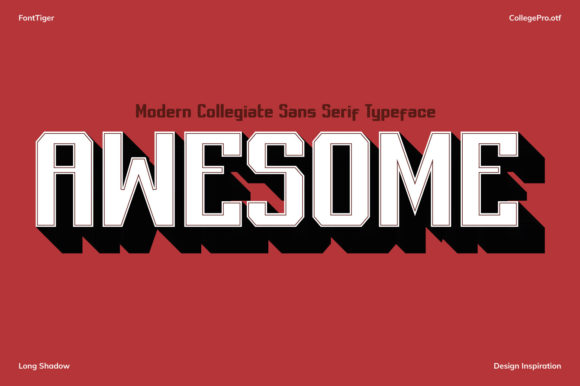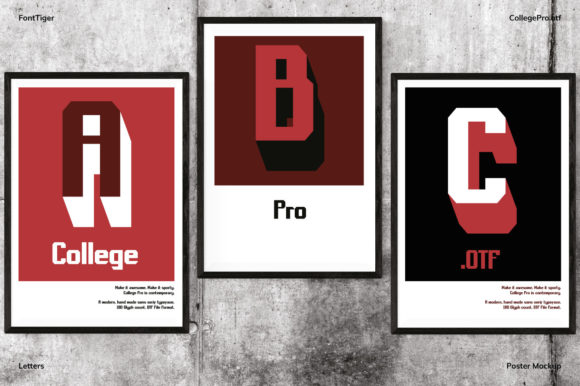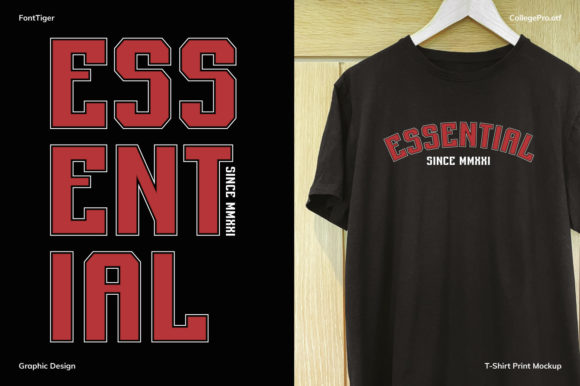
Introducing College Pro Font: The Ultimate Display Font for Bold Projects
Are you tired of using the same old fonts for your design projects? Look no further than College Pro Font, a cool, thick lettered, and assertive display font that’s perfect for making a statement. With its bold and eye-catching design, College Pro is ideal for a wide range of projects, from blog posts and logos to branding, ads, invitations, greeting cards, planners, photo albums, decorations, and much more.
What Makes College Pro Font So Special?
College Pro Font is a unique and versatile font that’s designed to help you create stunning visual content. Its thick lettering and assertive style make it perfect for grabbing attention and conveying confidence. Whether you’re a designer, crafty DIY enthusiast, or simply someone who loves to create, College Pro Font is the perfect addition to your font collection.
Endless Possibilities with College Pro Font
One of the best things about College Pro Font is its incredible versatility. This font can be used for a wide range of projects, including:
- Blog Posts: Add a bold and eye-catching title to your blog post with College Pro Font. It’s perfect for creating attention-grabbing headlines that draw readers in.
- Logos and Branding: Create a memorable and professional logo for your business or brand with College Pro Font. Its bold and assertive style makes it perfect for companies that want to make a statement.
- Ads: Use College Pro Font to create eye-catching ads that grab attention and drive results. Its thick lettering and bold style make it perfect for creating ads that stand out.
- Invitations and Greeting Cards: Add a personal touch to your invitations and greeting cards with College Pro Font. Its bold and playful style makes it perfect for creating unique and memorable cards.
- Planners and Photo Albums: Use College Pro Font to add a bold and creative touch to your planners and photo albums. Its thick lettering and assertive style make it perfect for creating visually appealing layouts.
- Decorations: Get creative with College Pro Font and use it to create stunning decorations for your home or office. Its bold and eye-catching style makes it perfect for creating unique and personalized decor.
Why Designers and Crafters Love College Pro Font
College Pro Font has quickly become a favorite among designers and crafters, and for good reason. Here are just a few reasons why:
- Easy to Read: Despite its bold and thick lettering, College Pro Font is surprisingly easy to read. This makes it perfect for creating visual content that’s both stylish and legible.
- Highly Versatile: College Pro Font can be used for a wide range of projects, from digital designs to print materials. Its versatility makes it a valuable addition to any font collection.
- Unique and Creative: College Pro Font is a truly unique and creative font that’s sure to help you stand out from the crowd. Its bold and assertive style makes it perfect for designers and crafters who want to create something truly special.
Tips for Using College Pro Font
Here are a few tips for getting the most out of College Pro Font:
- Experiment with Different Sizes: College Pro Font looks great in a variety of sizes, from small and subtle to large and bold. Experiment with different sizes to find the one that works best for your project.
- Pair it with Other Fonts: College Pro Font pairs well with a variety of other fonts, from simple and elegant to bold and playful. Experiment with different font combinations to find the one that works best for your project.
- Use it for Headlines and Titles: College Pro Font is perfect for creating eye-catching headlines and titles. Use it to add a bold and creative touch to your visual content.
| Font Name | College Pro Font |
| Author | FontTiger |
College Pro Font is a cool, thick lettered, and assertive display font that’s perfect for making a statement. With its bold and eye-catching design, College Pro is ideal for a wide range of projects, from blog posts and logos to branding, ads, invitations, greeting cards, planners, photo albums, decorations, and much more. Whether you’re a designer, crafty DIY enthusiast, or simply someone who loves to create, College Pro Font is the perfect addition to your font collection.